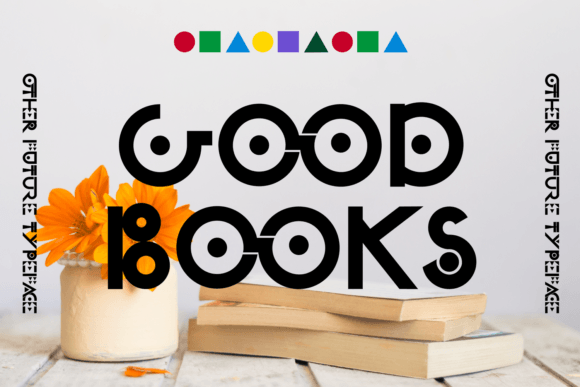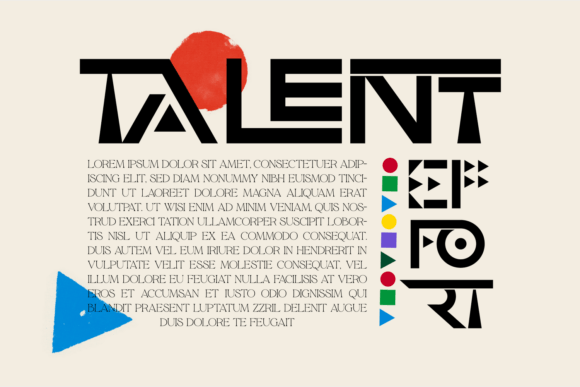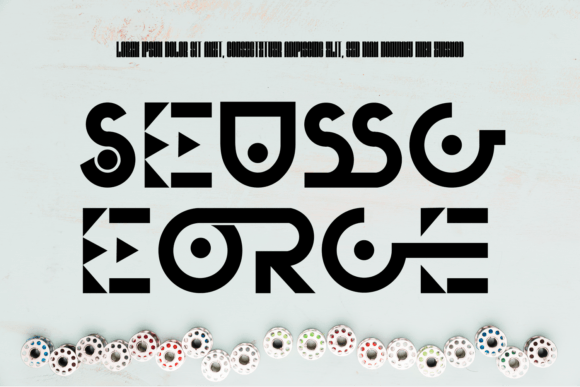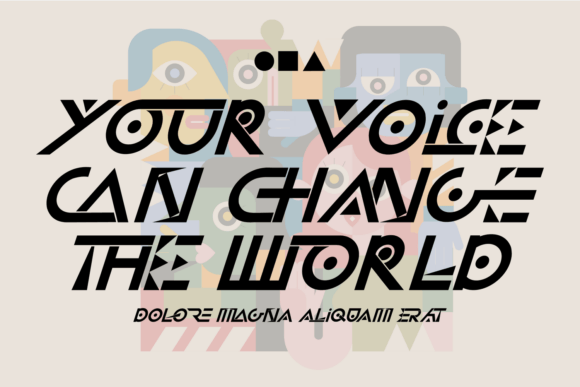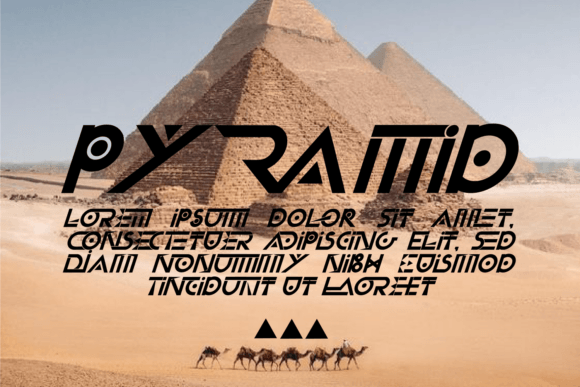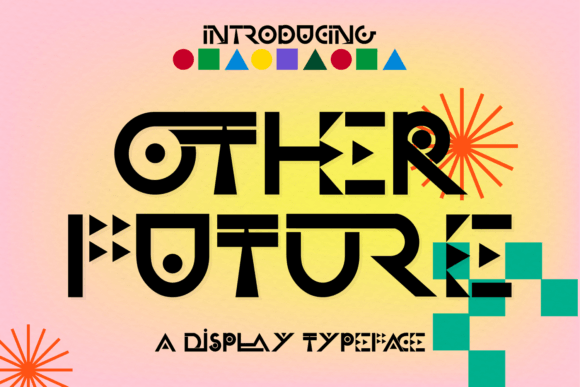
Introduction to Other Future Font
Other Future is a modern font that draws inspiration from future cyberspace with spaceage technology geometric shapes, creating a striking visual style perfect for sci-fi, technology, and game designs.
Suitable for magazine titles, posters, brochures, movie titles, instagram posts, youtube thumbnails, youtube titles, shop names, company names, business cards, packaging, products and more .
Key Features of Other Future Font